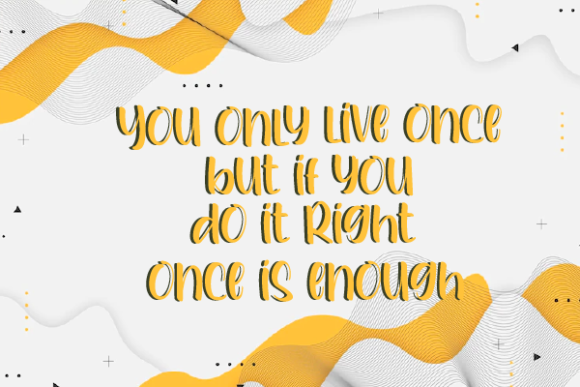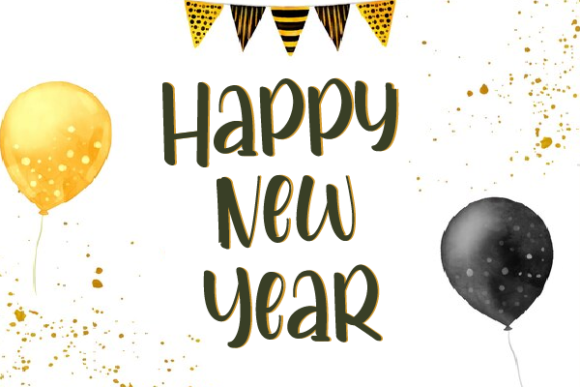
Smart Kids Font
About Smart Kids Font
Smart Kids is a chic and brushed script font designed to add a touch of sophistication to your creative projects. This versatile font is perfect for a wide range of applications, including product packaging, branding projects, magazine covers, social media, weddings, and any design where expressing words above the background requires a stylish and modern touch.
The chic nature of Smart Kids is reflected in its brushed script, creating an elegant and contemporary aesthetic. Each character is carefully crafted, contributing to the font’s overall sense of style and sophistication.
In product packaging, Smart Kids introduces a chic and modern flair, enhancing the overall visual appeal of your products. Its brushed script imparts a sense of trendiness and refinement, making it an attractive option for a variety of goods.
For branding projects, Smart Kids becomes a valuable asset, creating a distinctive and stylish look. Its chic and brushed script seamlessly adapts to different design elements, providing cohesiveness and visual impact to your brand identity.
Magazine covers benefit from Smart Kids’ standout quality, especially when used for headlines or subheadings. The brushed script adds an extra layer of elegance to the publication, making it visually captivating.
Social media posts come alive with Smart Kids, injecting a sense of chic and modernity into your messages. Whether you’re sharing quotes, promotions, or creative content, this font enhances the visual impact, making your posts stand out in the digital space.
For weddings, Smart Kids adds a contemporary and stylish touch to invitations, place cards, and other stationery. Its chic and brushed script creates an on-trend and memorable atmosphere for the celebration.
Embrace the chic and modern aesthetics of Smart Kids as it enhances your projects with a brushed script that exudes sophistication. Let this font be the key to making your designs effortlessly stylish and visually appealing.